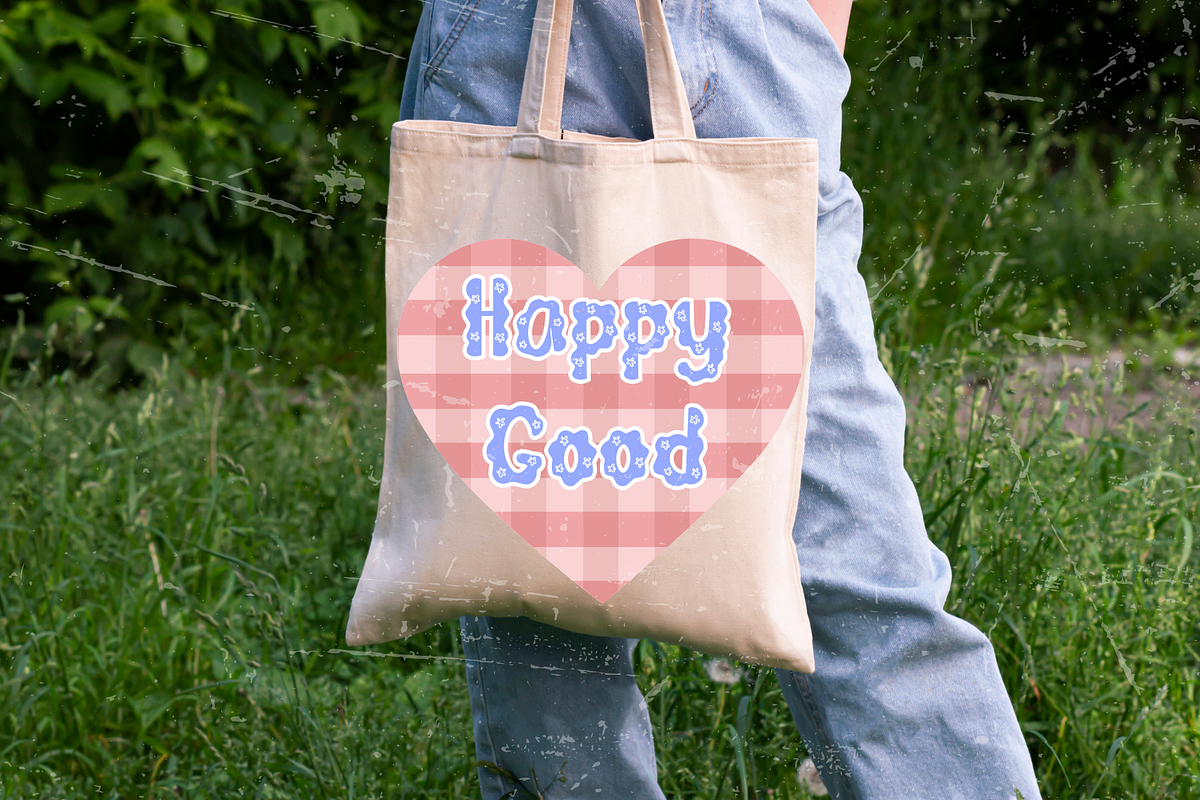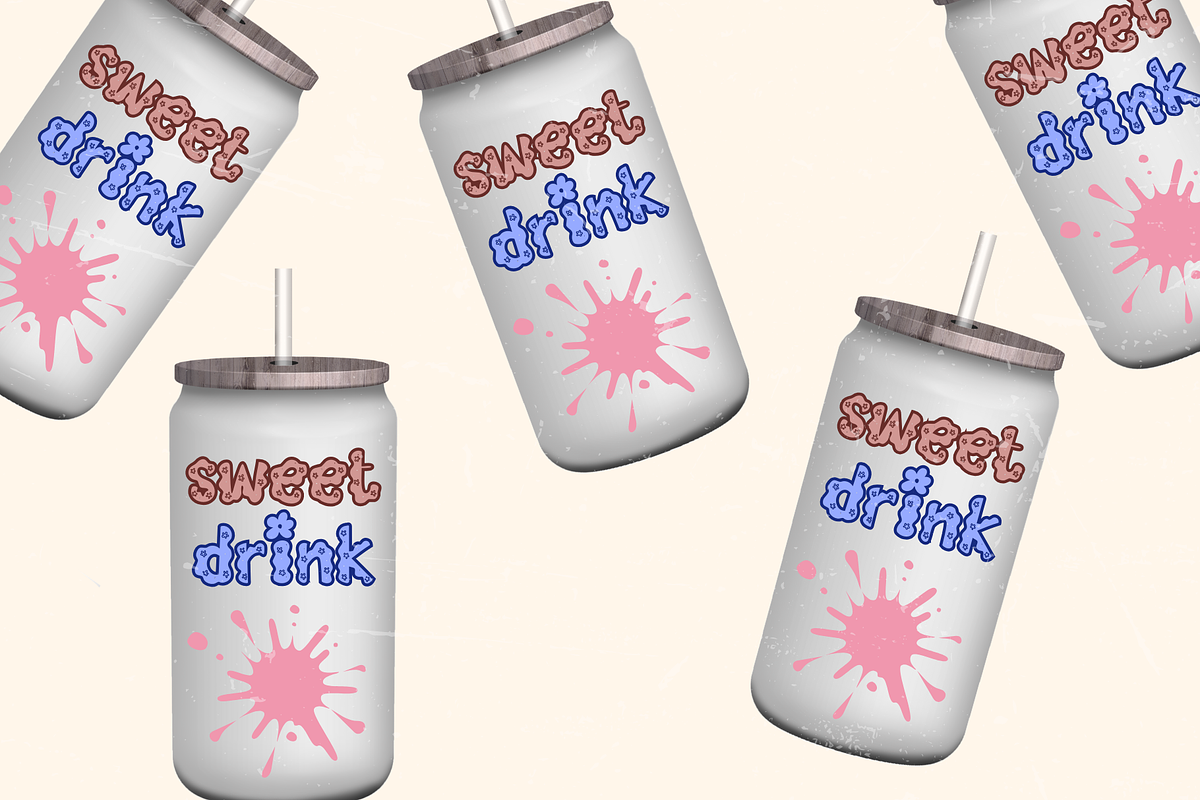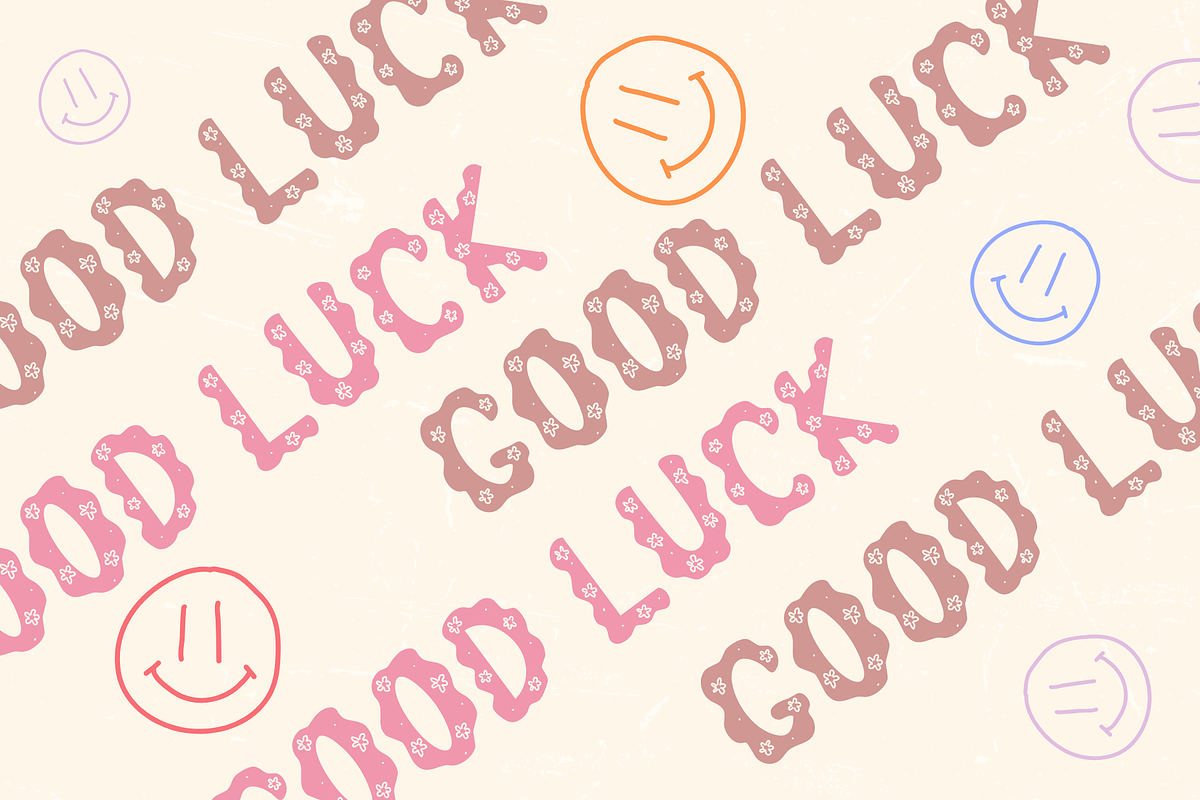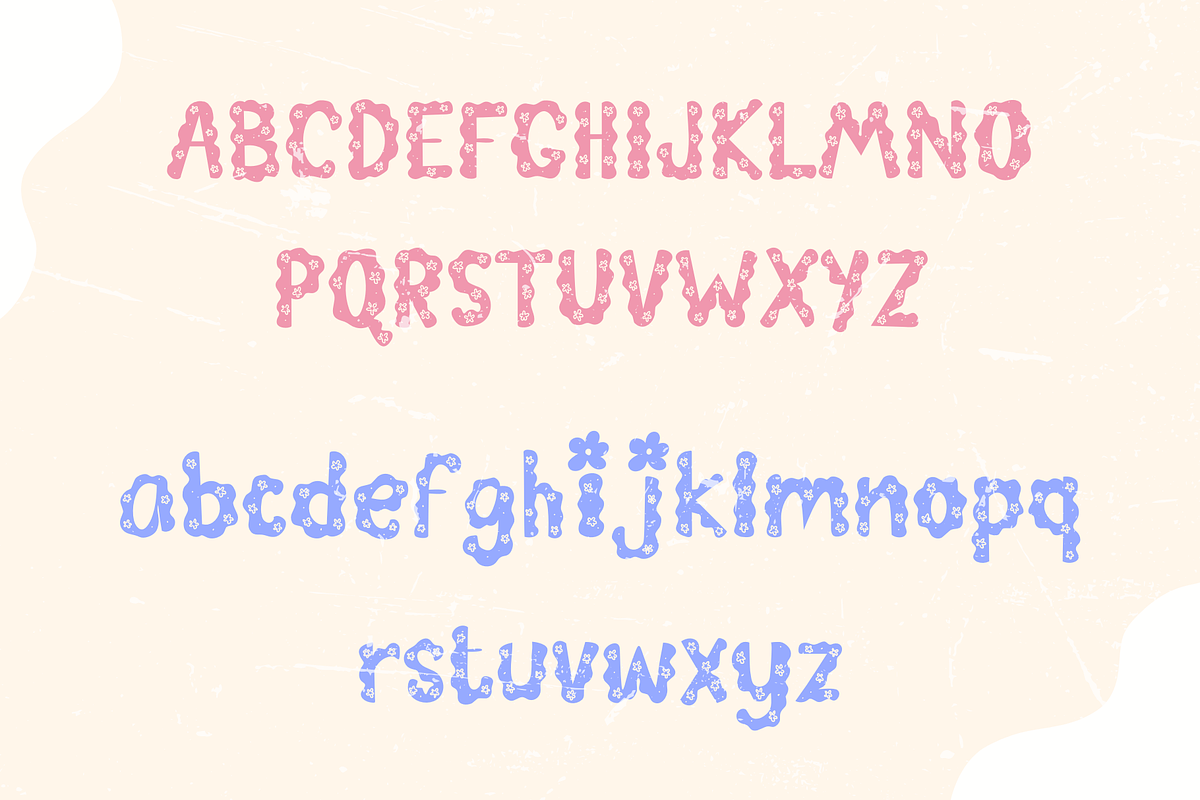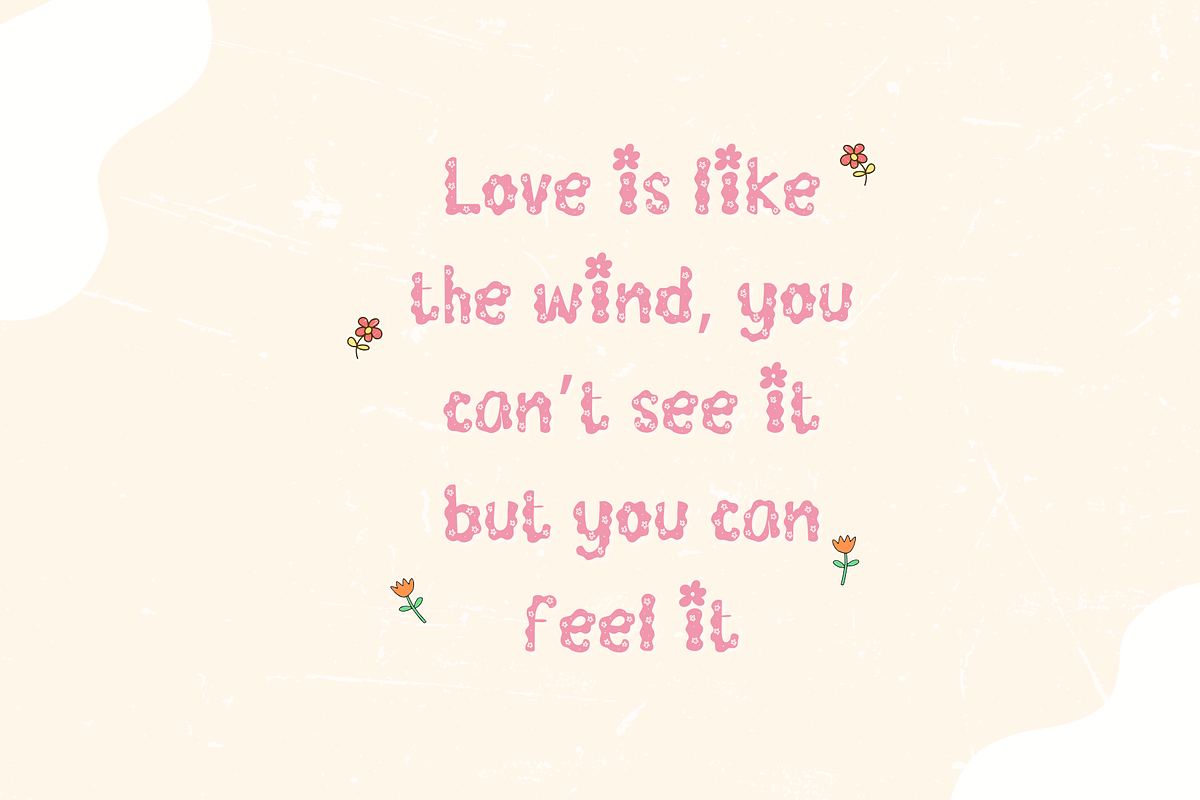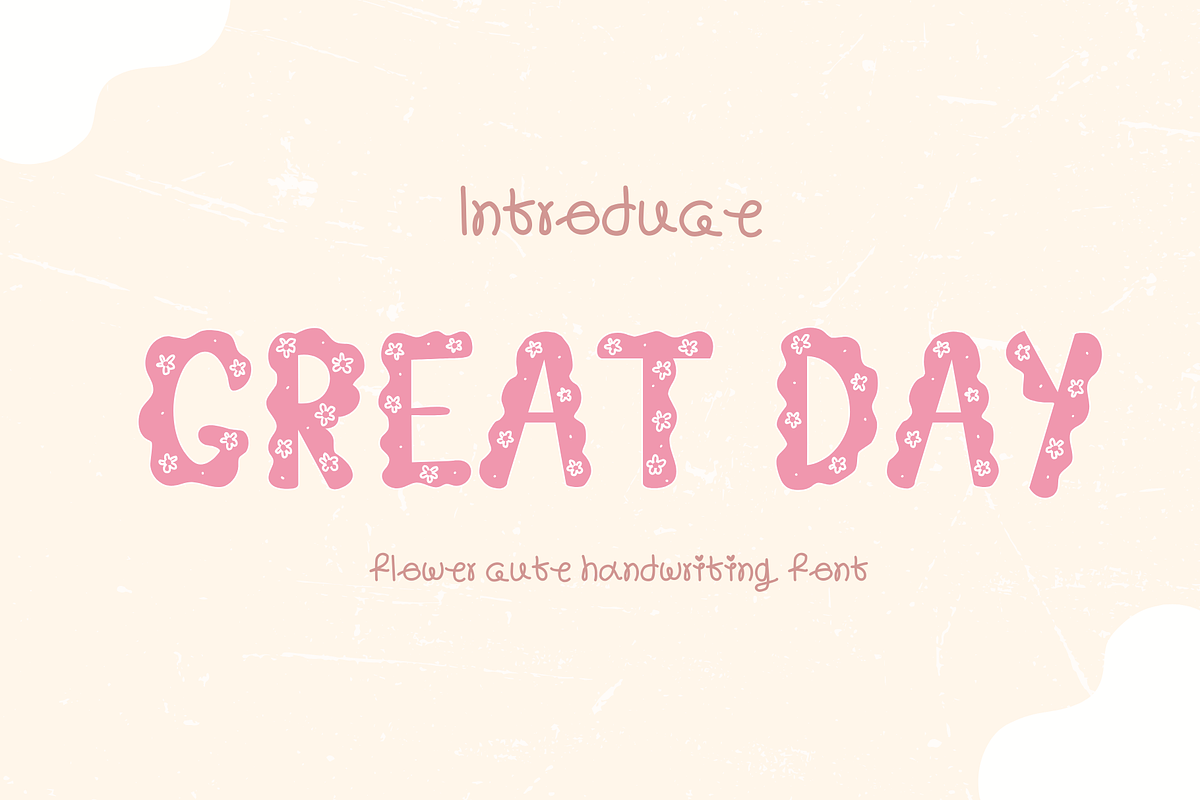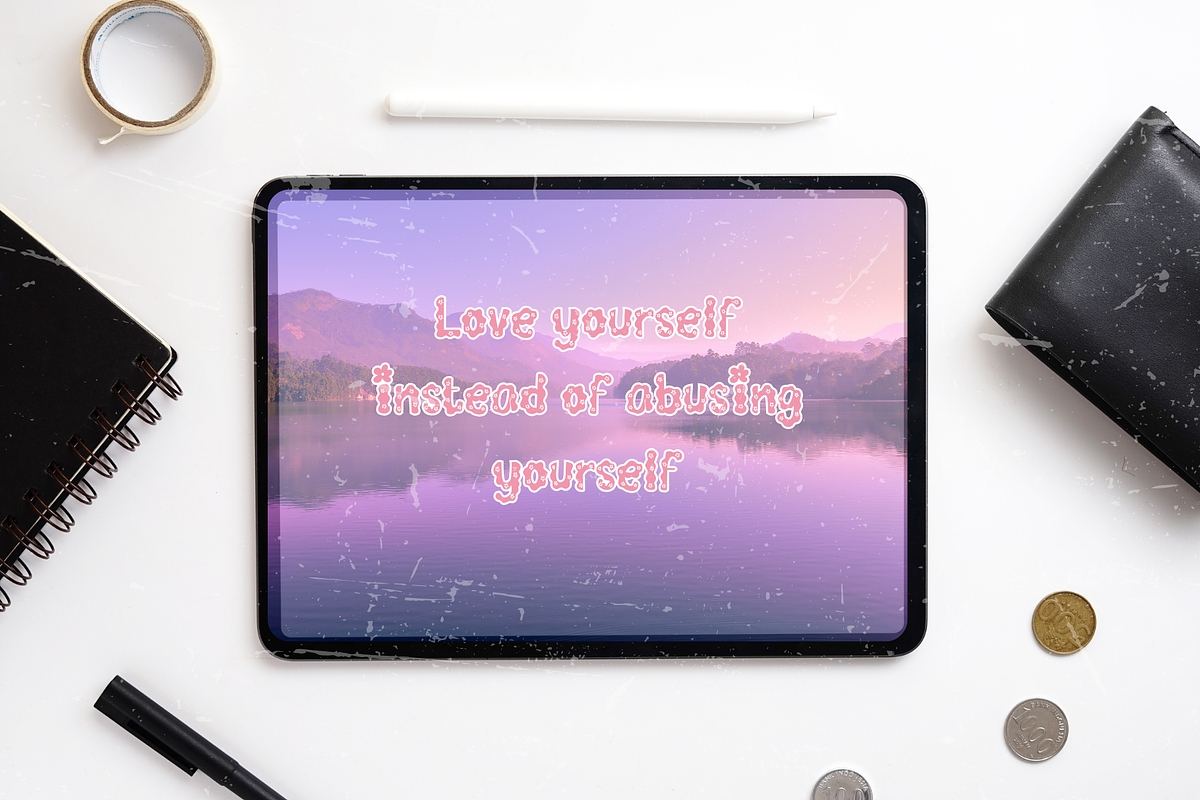
Great day font
A cute decorative font with a flower theme, featuring curved lines that create a whimsical feel. It's suitable for various design projects, including clothing patterns, hats, bags, stickers, and more, allowing you to express your unique personality and have fun with the design process.